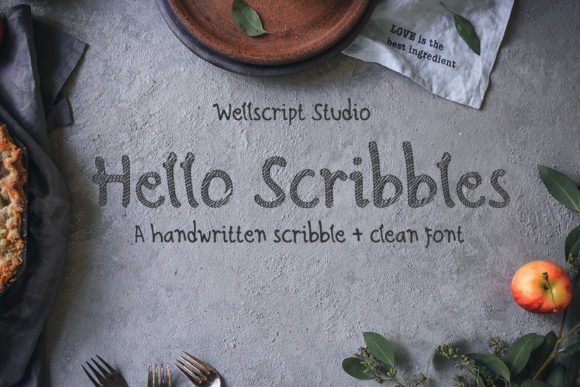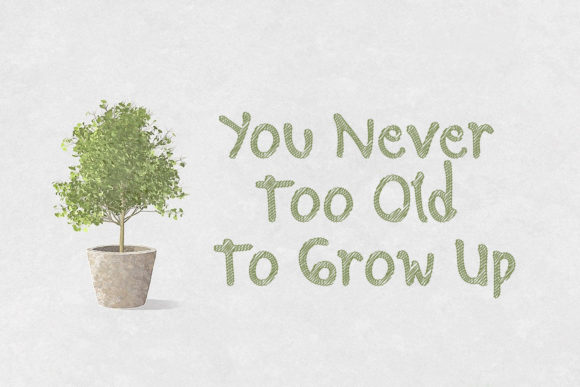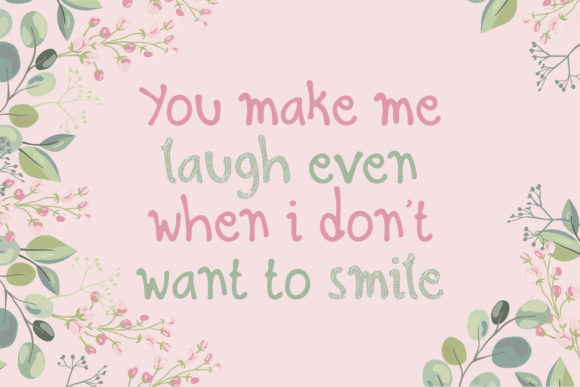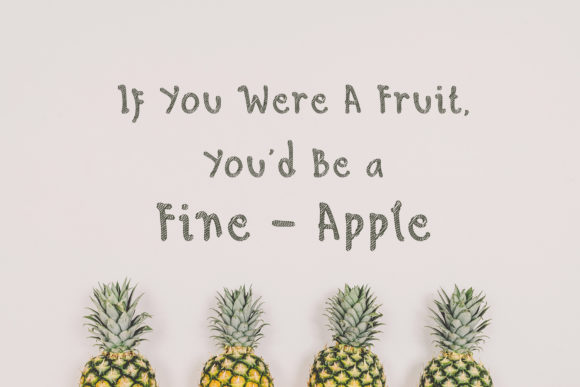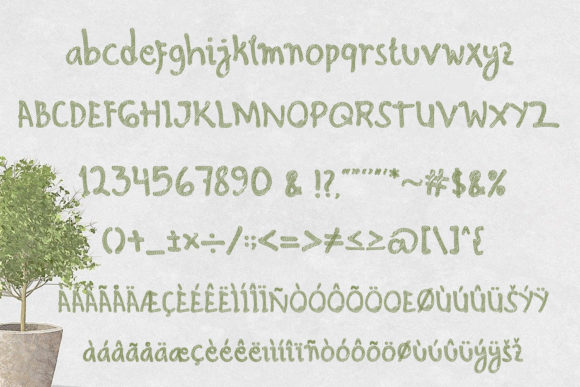
The Art of Creativity: Unleashing Your Inner Genius with Hello Scribbles Font
Have you ever stared at a blank canvas, notebook page, or screen, desperate for the perfect spark to ignite your creativity? It’s a moment we’ve all experienced, where our minds are racing with ideas, but nothing seems to come together. That’s where the magic of the Hello Scribbles Font comes in – a whimsical display font designed to breathe life into your most imaginative ideas.
With its playful, handwritten feel, Hello Scribbles Font is the perfect companion for designers, artists, and creatives looking to add a touch of personality to their projects. Whether you’re crafting social media posts, designing DIY crafts, or creating calligraphy scripts, this enchanting font will transform your ideas into stunning works of art that showcase your unique style.
Hello Scribbles Font Key Features
- Font Family: Hello Scribbles is a handwritten font family with multiple styles, including Regular, Bold, Italic, and Bold Italic.
- Character Set: The font family includes a wide range of characters, including uppercase and lowercase letters, numbers, punctuation marks, and special characters.
- Unique Characteristics: The font’s unique, handwritten style makes it perfect for creating personal and creative designs, such as invitations, posters, and social media graphics.
Hello Scribbles Font Review
I recently had the chance to work with the Hello Scribbles font, and I must say it’s a unique addition to any design project. ✨ The font’s playful, handwritten feel makes it perfect for creating eye-catching titles and headings.
One of the things I love about Hello Scribbles is its high level of customization. ✨ The font comes in a range of weights and styles, making it easy to match the tone and mood of your design. Plus, the script font is incredibly versatile, working well for both digital and print projects.
However, there are a few limitations to keep in mind. ⚠️ At smaller font sizes, the letterforms can become difficult to read, and the font may not be as effective for body copy. Additionally, some users may find the font’s inconsistent spacing and letterforms to be distracting.
Here are a few things to consider when working with Hello Scribbles:
- Use it sparingly for titles and headings to avoid overwhelming the reader.
- Pair it with a clean, sans-serif font for body copy to create a clear visual hierarchy.
- Take advantage of the font’s customization options to create a unique and engaging design.
Overall, I think Hello Scribbles is a great addition to any designer’s toolkit. With a little creativity and restraint, it can add a touch of personality to even the most straightforward design projects.
The “Hello Scribbles Font” is ideal for:
- Handwritten-style invitations and greeting cards.
- Children’s books and educational materials.
- Artistic and creative projects.